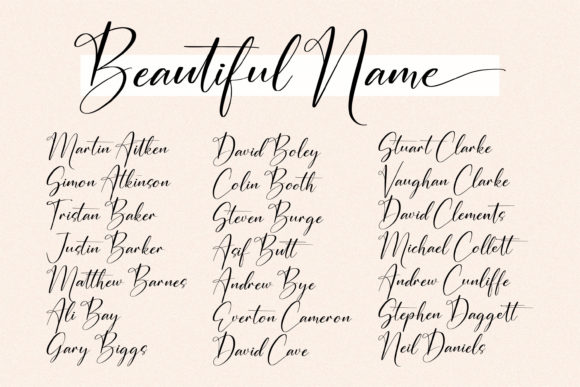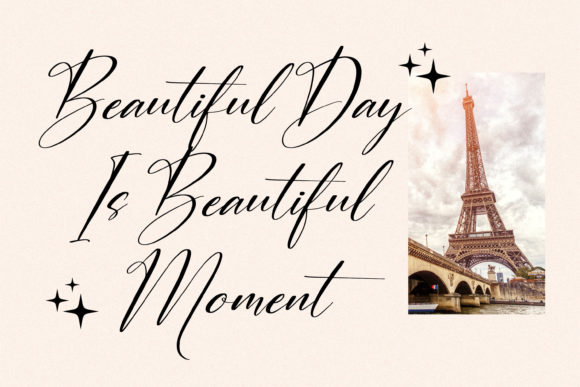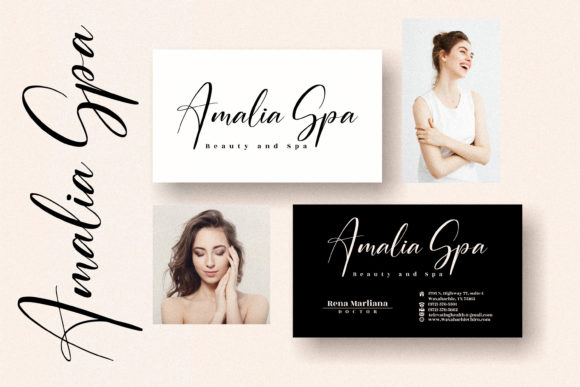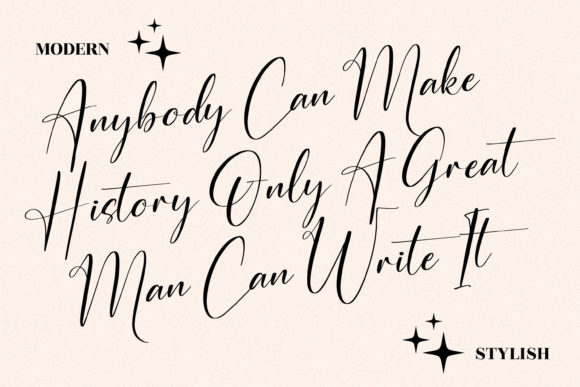
About Auristtela Patricia Font
Auristtela Patricia is a lovely and delicate script font that exudes elegance and class. This font was particularly crafted for those who need a beautiful and refreshing look to their designs.